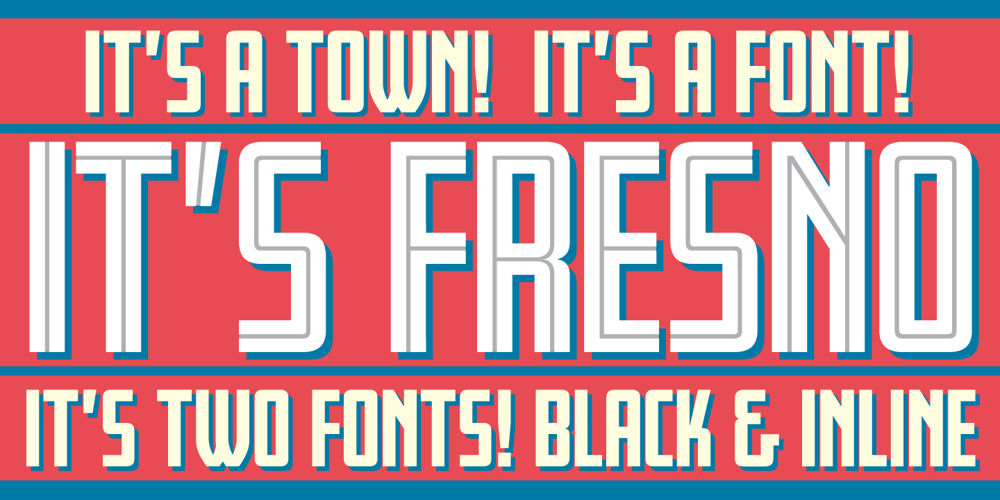
Fresno
Fresno font
Fresno Font Family was designed by Jim Parkinson and published by Parkinson. Fresno contains 2 styles and family package options. Fresno is a two-font family. Fresno Inline and Fresno Black. Fresno Black is a recent addition. It can be used alone, and it is carefully tailored to fit behind the Inline font to add color to the inline. There are alternate characters: A, M & N in the caps and lowercase key positions. Fresno is a square gothic style typical of Mid-20th Century Showcard Lettering. A lettering genre known as “Gaspipe.” Signage samples similar to this still exist on buildings in my home town, Oakland, California. I have designed over a half dozen variations of this form over the years. Including Amboy. Golden Gate Initials, Matinee, Motel, and Hotel. Designed in 2001 by Jim Parkinson, Fresno has recently been refreshed, enhanced, and re-released.